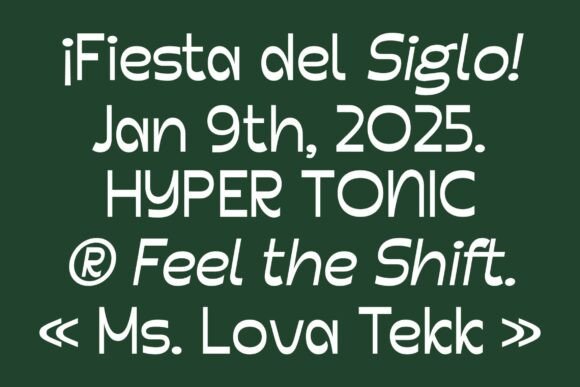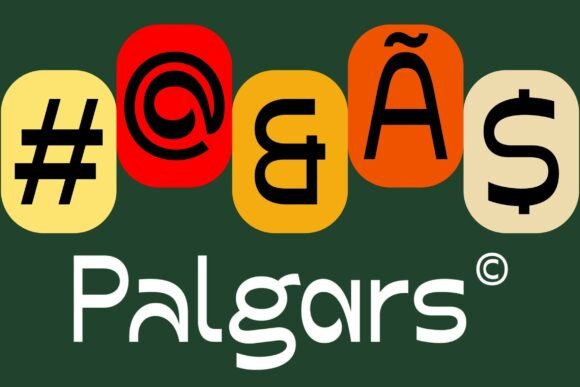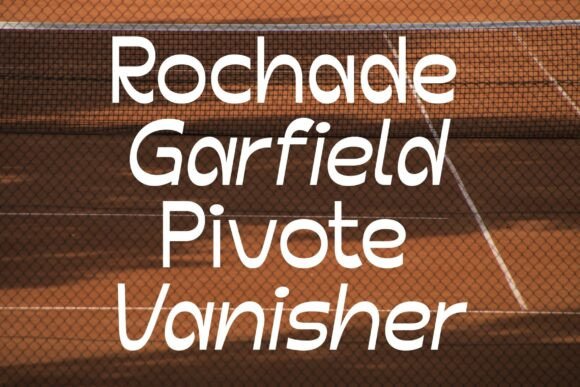
Introduction to Palgars Font
**Meet Palgars: The Font That Blends Modern with Playful** Tired of boring, generic fonts.
Give your designs a voice that stands out Introducing **Palgars**, a modern and playful display font designed to inject personality and charm into your projects.
Why Choose Palgars Font?
Palgars Font offers exceptional quality and versatility, making it a valuable addition to your design toolkit. Whether you’re creating for personal projects or commercial use, Palgars Font delivers professional results.